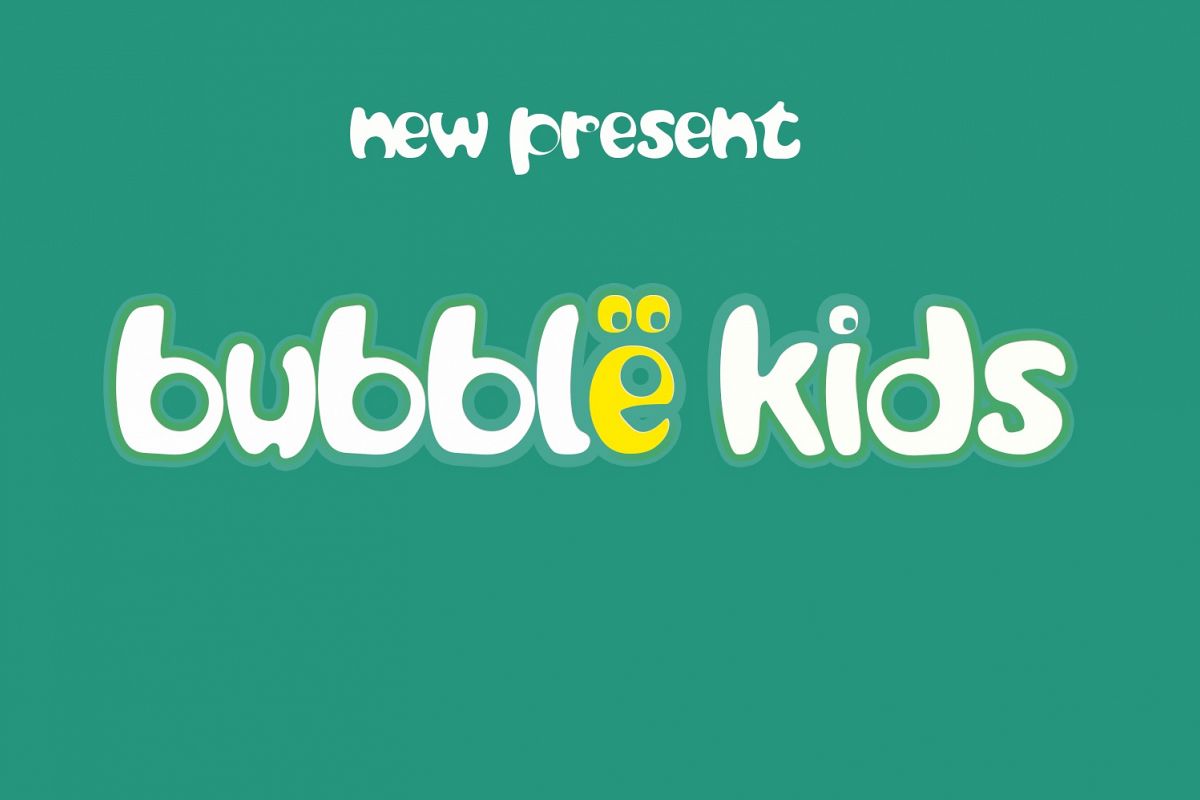
Bubble Kids
Bubble kids, smile fonts including plain and highlighted letters and humorous style to guide the water bubbles in the letter, Form typography inspired by the style of splashing water.